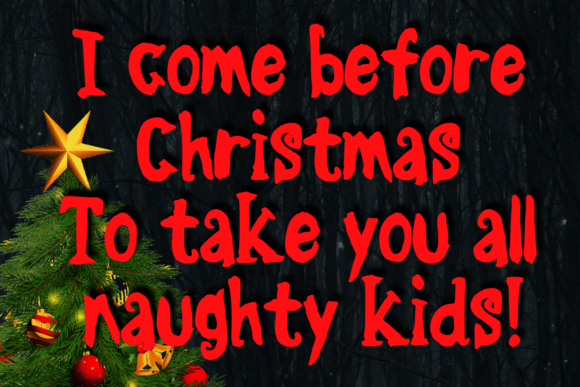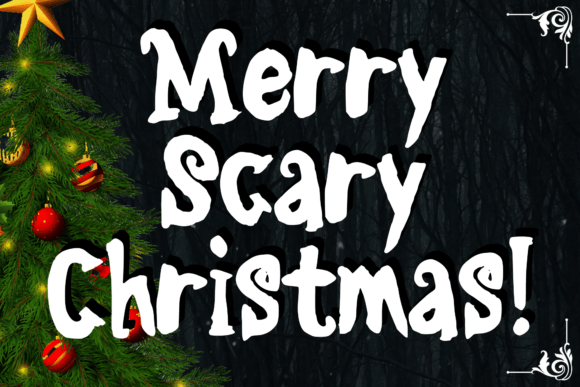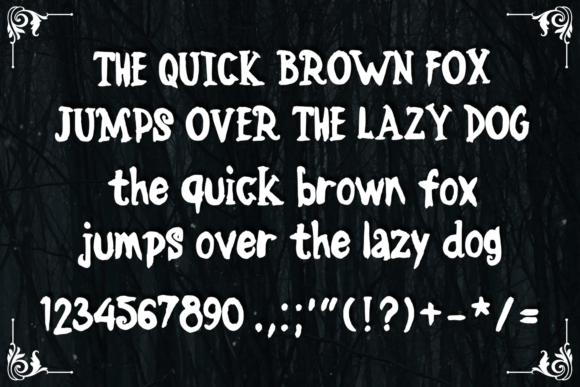
A Season of Frightful Creativity
It’s that time of the year when the air is crisp, and the nights are dark – the perfect setting for unleashing your creativity. You’re rummaging through your font library, searching for the perfect typography to match the eerie atmosphere of the season. And then, it hits you – the perfect font to set the tone for your Halloween or Christmas designs.
Enter the Akrampus Font, a scary Christmas display font that’s sure to send shivers down the spines of your audience. This versatile font is perfect for designing t-shirts, book covers, greeting cards, stickers, and posters that exude a casual yet spooky charm. Whether you’re a seasoned designer or a hobbyist, the Akrampus Font is a valuable addition to your typography arsenal.
With its unique style and endless possibilities, the Akrampus Font is a must-have for anyone looking to create eye-catching designs that stand out from the crowd. So, fall in love with its incredibly versatile style and get ready to unleash your creativity with this spook-tacular font.
Akrampus Font Key Features
- Unique Characteristics: Hand-drawn design, distressed texture, and a vintage aesthetic, making it suitable for horror-themed, steampunk, or fantasy designs
Akrampus Font Review
I recently had the chance to work with the Akrampus Font, and I must say it’s a unique addition to any design project. Here are my thoughts on what makes it stand out:
- ✨ The font’s playful, handwritten feel adds a touch of whimsy to any text. It’s perfect for creating a lighthearted, approachable atmosphere in designs.
- ✨ The font’s versatility is impressive, as it can be used for a wide range of projects, from branding and advertising to editorial and social media content.
- ✨ The font’s intricate details and flourishes make it a great choice for designers looking to add some visual interest to their work.
- ⚠️ The font can be quite busy and overwhelming, especially when used in large blocks of text. Be careful not to overuse it, or it may become distracting.
- ⚠️ The font’s irregularities can make it challenging to read, particularly for those with visual impairments or in low-light environments.
Overall, I think the Akrampus Font is a great choice for designers who want to add some personality and flair to their work. While it may not be suitable for all projects, it’s definitely worth considering for those looking to create a unique and engaging visual identity.
Tips for Getting the Most Out of Akrampus Font
Use the Akrampus font for creative and artistic projects, such as:
- Designing horror-themed graphics and posters.
- Creating spooky typography for Halloween and other holidays.
- Adding a touch of darkness and mystery to your branding and marketing materials.